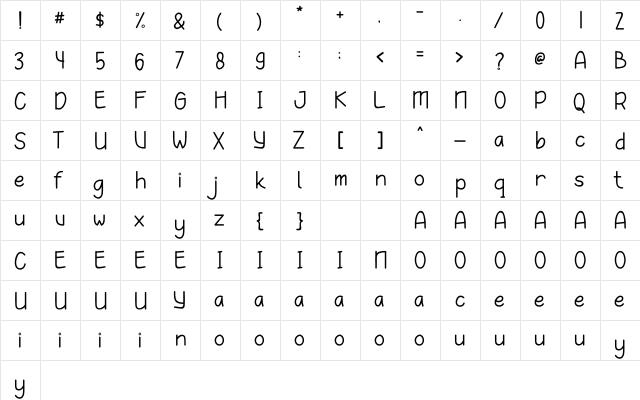
Baby Giraffe Regular
Design Context for Baby Giraffe Typeface
Baby Giraffe is a composed and adaptable typeface that performs quietly and consistently across a wide range of design contexts.